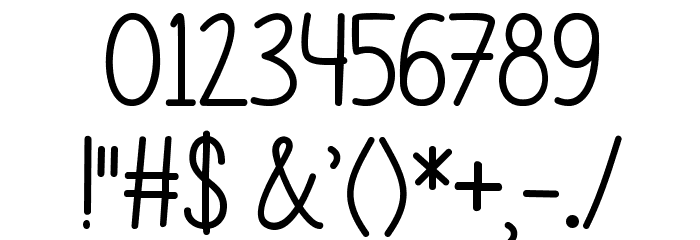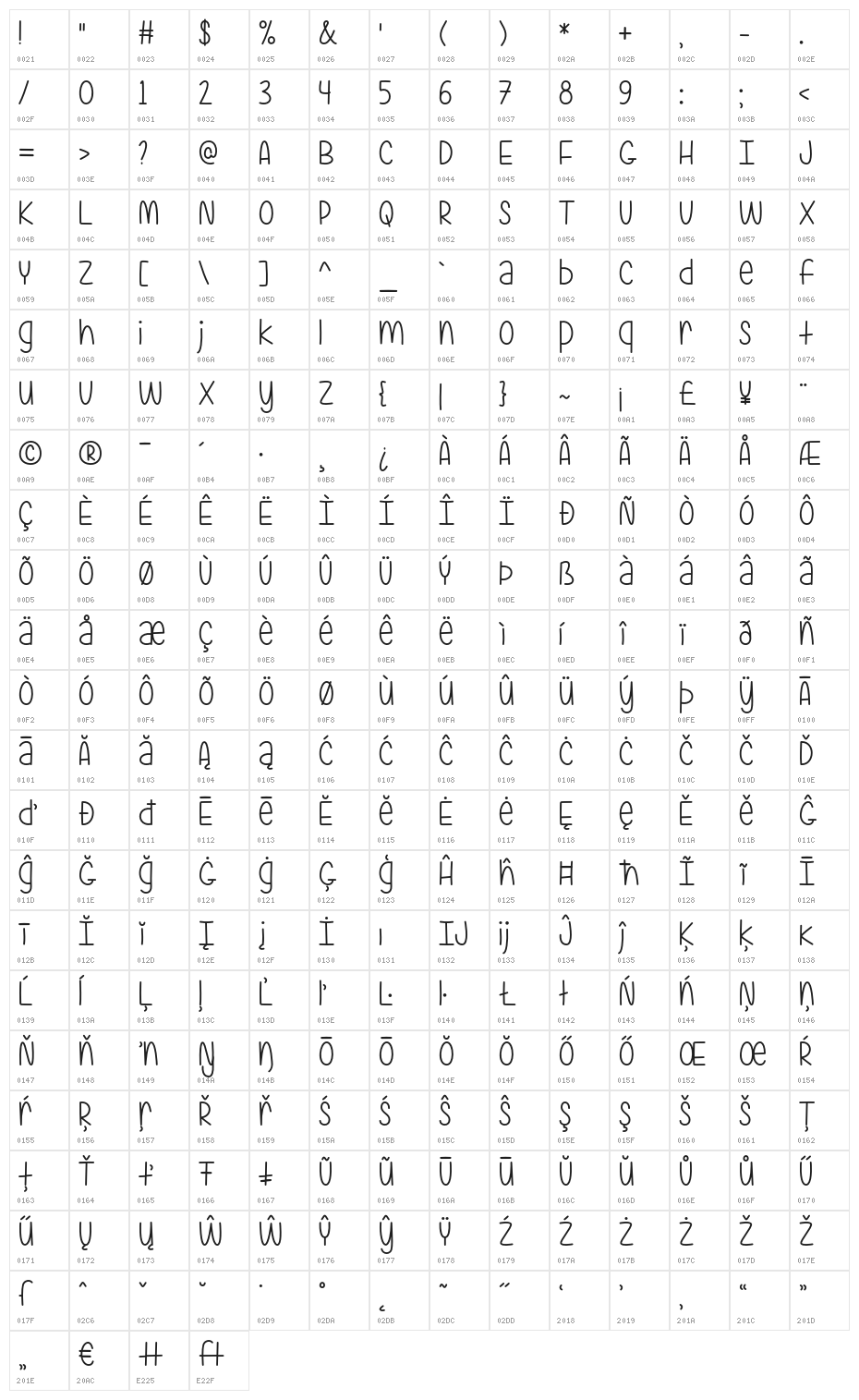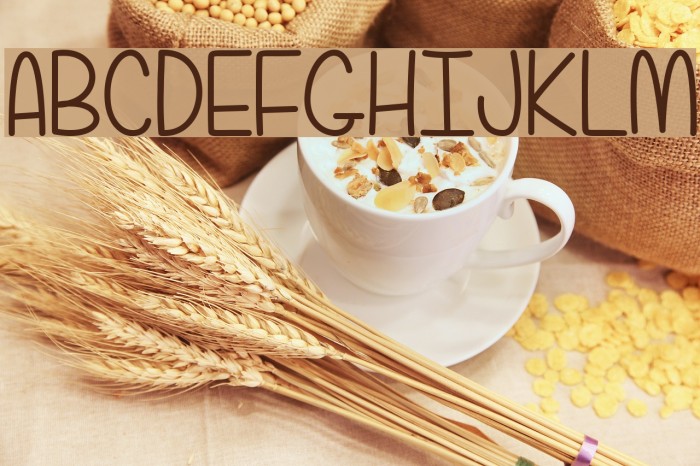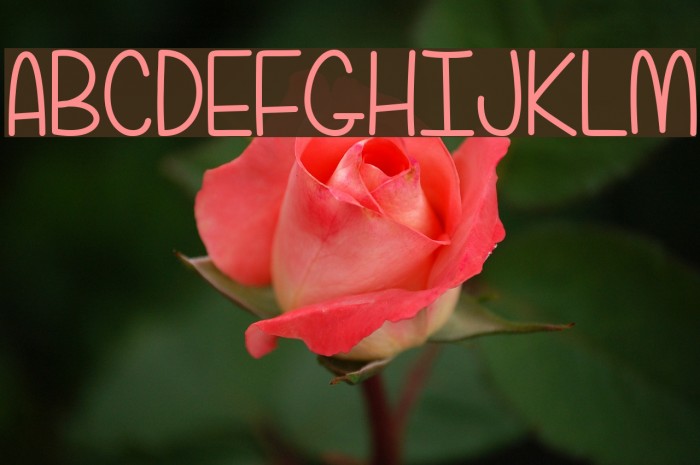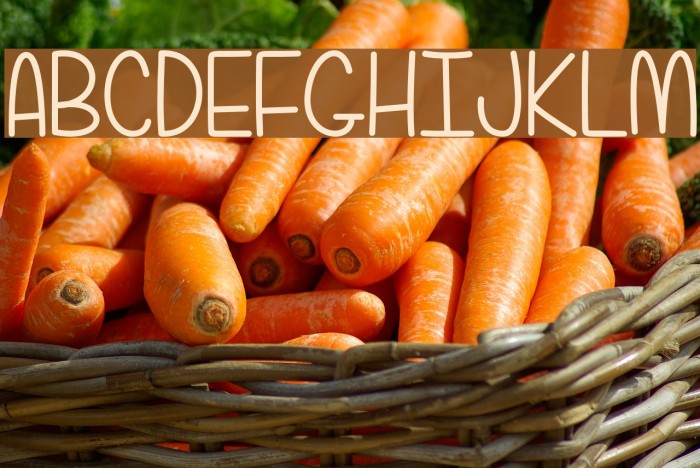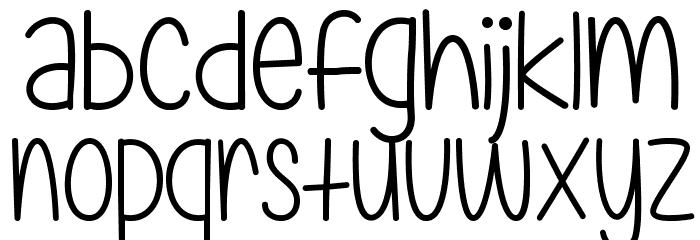
AreYouFreakinSerious Font
AreYouFreakinSerious Description
This playful and whimsical font features rounded, hand-drawn characters that exude a sense of fun and creativity. The letters are slightly irregular, giving them a charming, informal appearance. The uppercase and lowercase letters maintain a consistent style, with smooth curves and a friendly demeanor. Numbers and special characters are crafted with the same playful touch, making them suitable for a variety of creative projects. The font's overall look is casual and approachable, perfect for designs that aim to convey warmth and personality.
| Use Case | Headlines, Logos, Informal text |
| Proposed Projects | Ideal for children's books, greeting cards, playful branding, and social media graphics. |